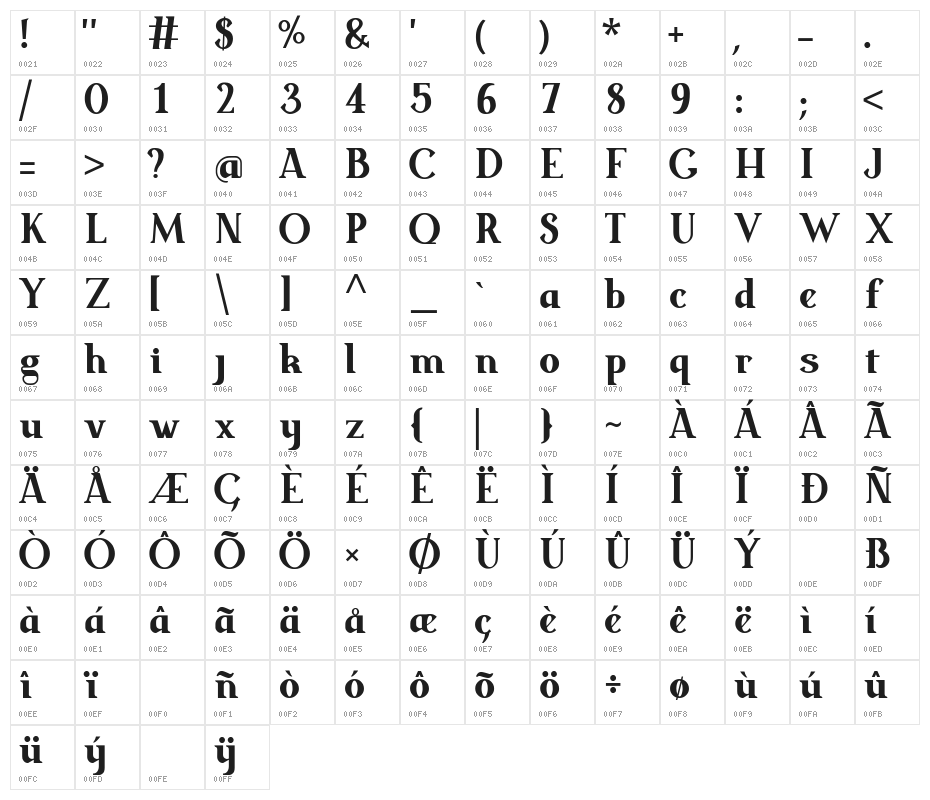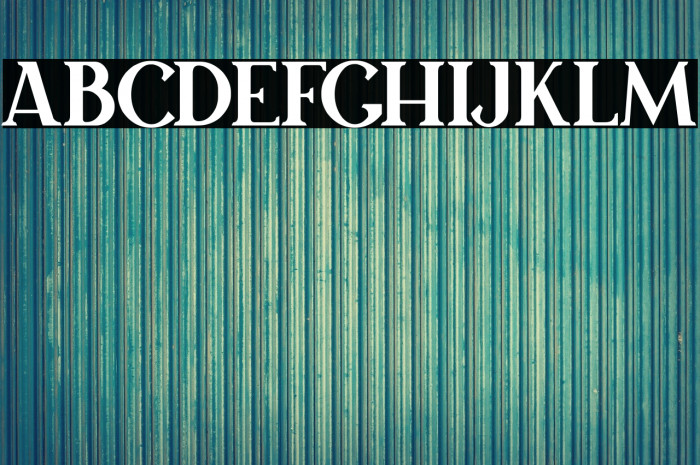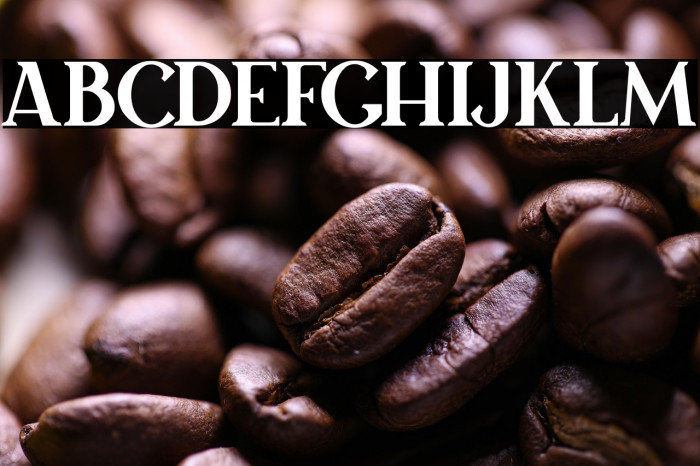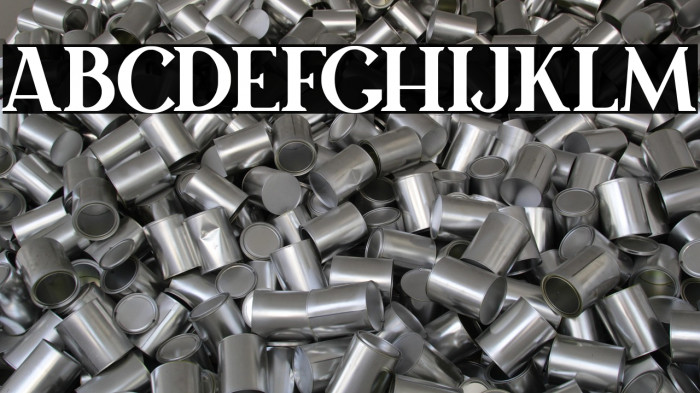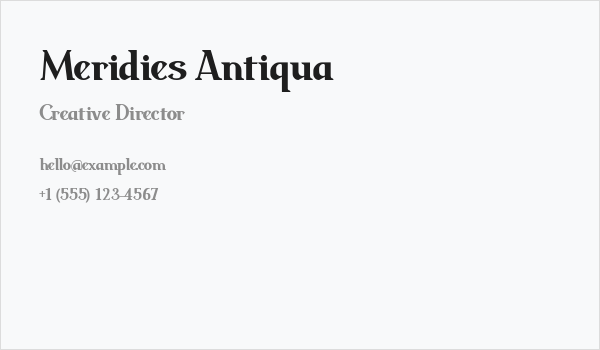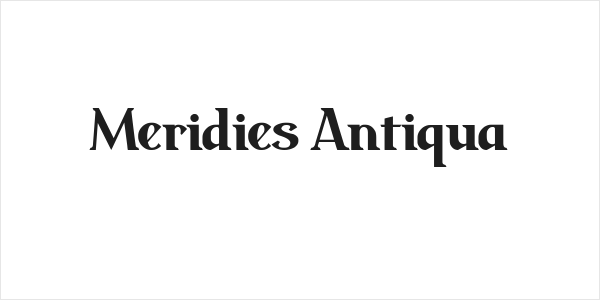
Meridies Antiqua Font
Meridies Antiqua Description
This font features a classic serif design with elegant and refined strokes. The uppercase letters exhibit a strong presence with sharp serifs and a balanced weight, making them ideal for formal and traditional applications. The lowercase letters maintain a consistent style with slightly rounded edges, providing a harmonious flow. Numbers are clear and legible, with a traditional style that complements the overall aesthetic. Special characters are distinct and well-crafted, ensuring versatility in various contexts. The font's design is reminiscent of historical typefaces, offering a timeless appeal suitable for a range of projects.
| Proposed Projects | Ideal for book covers, formal invitations, historical documents, and branding that requires a traditional touch. |